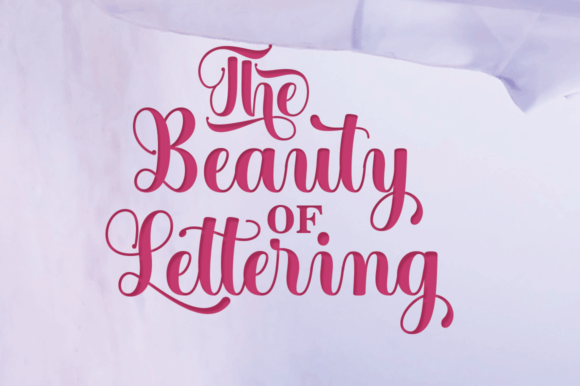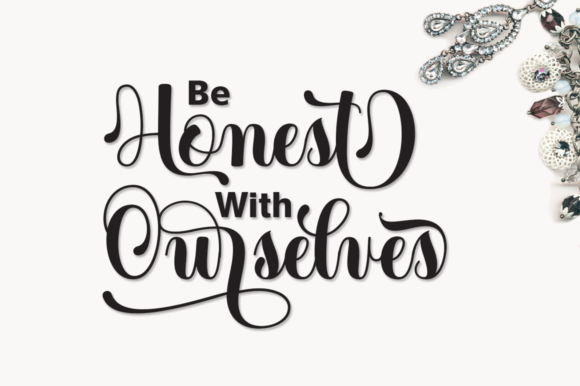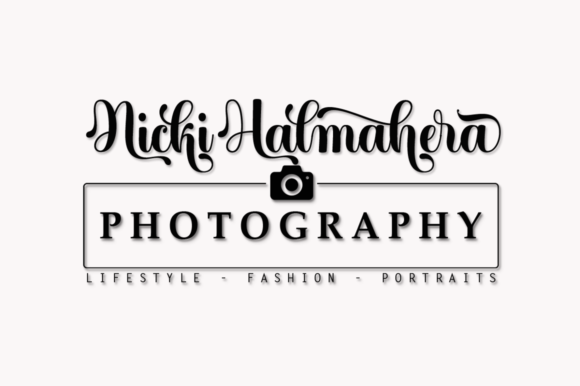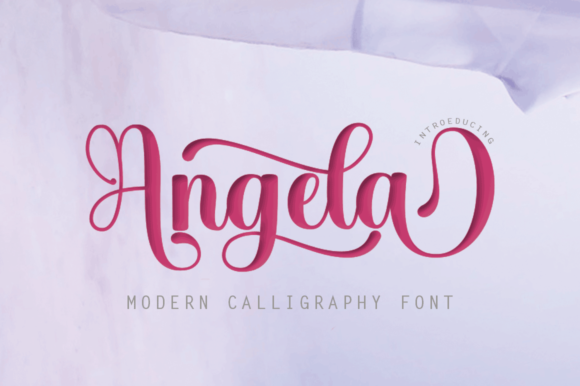
The Designer’s Delight: Angela Font Review and Guide
I’ll never forget the moment I stumbled upon the Angela font. I was working on a branding project for a luxury wedding planner, and I was struggling to find the perfect font that exuded elegance and sophistication. The client wanted something that felt high-end, yet approachable and modern. After hours of scouring font websites and testing various options, I finally stumbled upon Angela. It was love at first sight! 💕
Angela is an elegant and flowing handwritten font that has become a staple in my design toolkit. In this article, I’ll share my honest review, a step-by-step guide on how to use it, and some valuable tips and tricks to get the most out of this beautiful font.
Angela Font Review: What I Love
- ✨ Elegant and flowing handwritten script with a classy, calligraphic feel
- ✅ Maintains a contemporary and fresh feel while still feeling luxurious
- ✅ Perfect for branding, wedding designs, and high-end projects
While Angela is an amazing font, there are a few things to keep in mind:
- ⚠️ Some users may find the font a bit too ornate or over-the-top for certain projects
- 🤔 The font may not be suitable for body text or long blocks of text due to its script nature
The Story Behind Angela Font
Angela was designed by a talented type designer who wanted to create a font that exuded elegance and sophistication. Inspired by traditional calligraphy, Angela combines classic techniques with modern sensibilities to create a truly unique font. Whether you’re a designer, crafter, or creative hobbyist, Angela is sure to become a favorite in your toolkit.
| Is Angela font suitable for body text? | While Angela is a beautiful font, it’s not recommended for body text due to its script nature. It’s best used for headings, titles, and short blocks of text. |